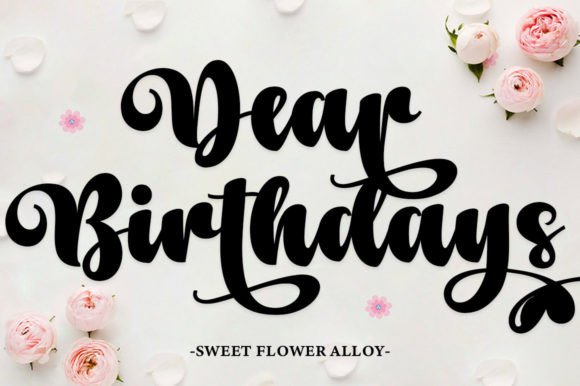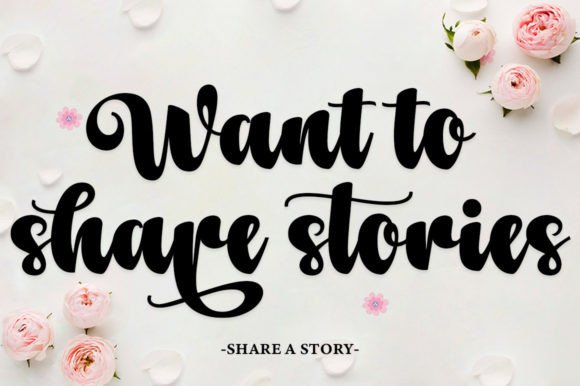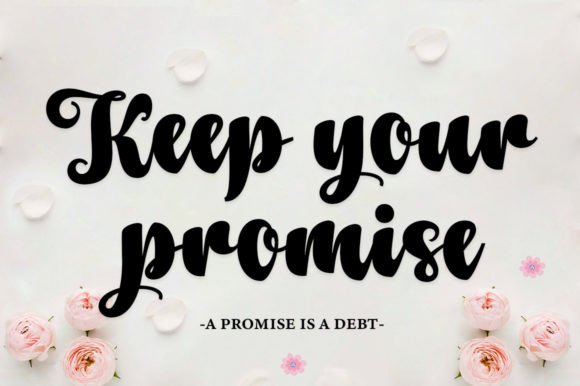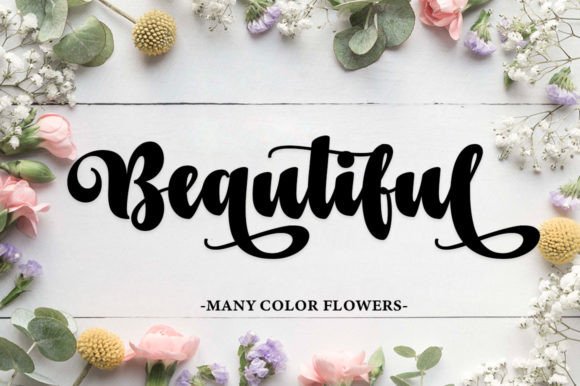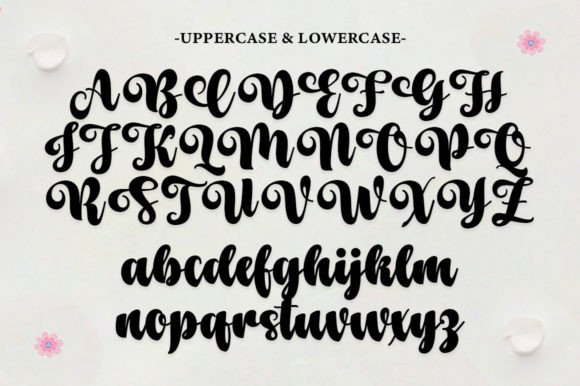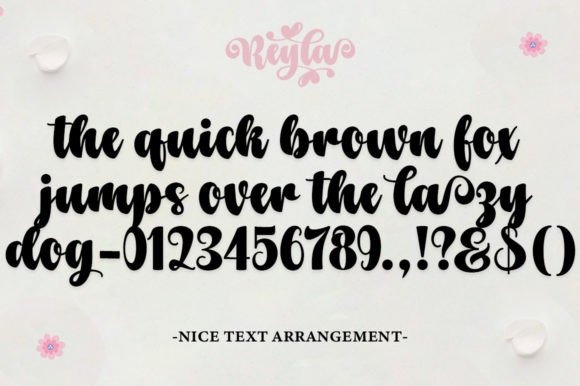
Introduction to Reyla Font
Have you ever stared at a blank canvas, struggling to find the perfect font to bring your creative project to life? We’ve all been there. As designers, we know that the right font can make all the difference between a mediocre design and a masterpiece. That’s why we’re excited to introduce you to the Reyla Font – a sweet, all-round, and flexible handwritten font that’s sure to elevate your design game.
With its warm, romantic, and jolly vibe, the Reyla Font is perfect for designers who want to add a touch of personality to their projects. Whether you’re working on a branding campaign, a wedding invitation, or a social media graphic, this font is sure to turn your ideas into stunning works of art.
Key Features of Reyla Font
Honest Review: Reyla Font
I recently came across the Reyla Font and was excited to dive in and explore its features. As a designer, I’m always on the lookout for high-quality design resources that can elevate my creative projects. The Reyla Font did not disappoint.
- ✨ High-quality typography: The font is crisp and clean, making it perfect for a variety of creative projects.
- ✨ Transparent background: The font’s transparent background makes it easy to use on any design surface.
- ⚠️ Limited font styles: While the font is well-designed, it’s a bit limited in terms of font styles and weights.
- ⚠️ Not ideal for complex text: Due to its clean and simple design, the Reyla Font may not be the best choice for complex or detailed text.
Overall, I was impressed with the Reyla Font’s quality and versatility. While it may not be perfect for every design project, it’s a great addition to any designer’s toolkit. If you’re looking for a high-quality, easy-to-use font for your creative projects, the Reyla Font is definitely worth checking out.
Reyla Font is a high-quality, free design resource perfect for any creative project. With its sleek and modern design, it’s ideal for a wide range of applications.
Getting the Most Out of Reyla Font
To get the most out of Reyla Font, use it with a transparent background to create a modern and sleek look. Experiment with different font sizes and styles to find the perfect combination for your project.